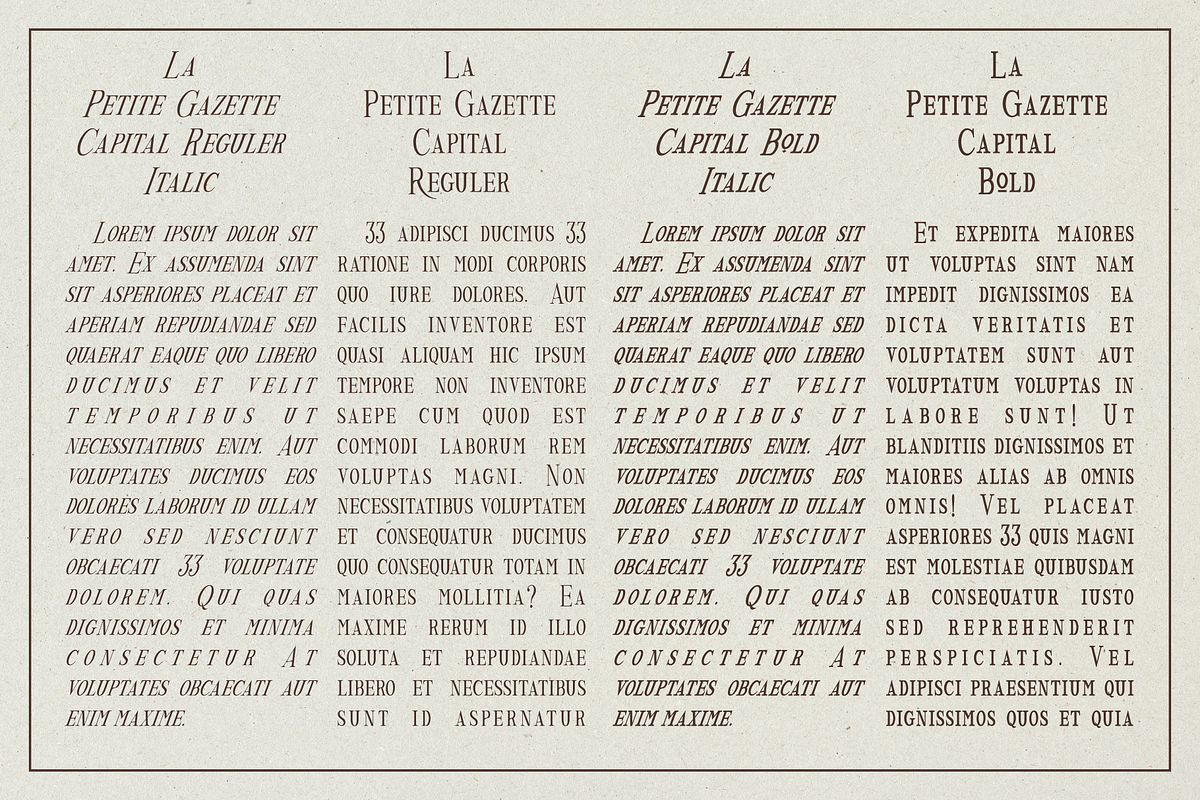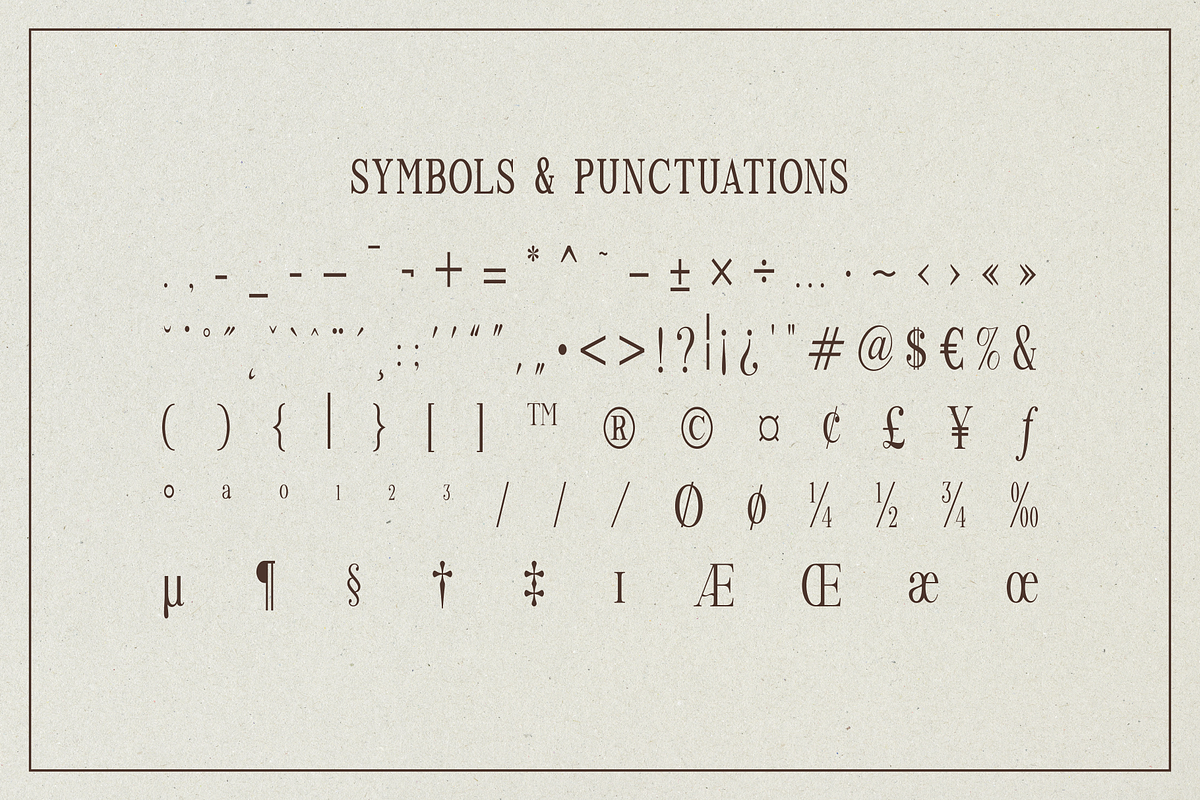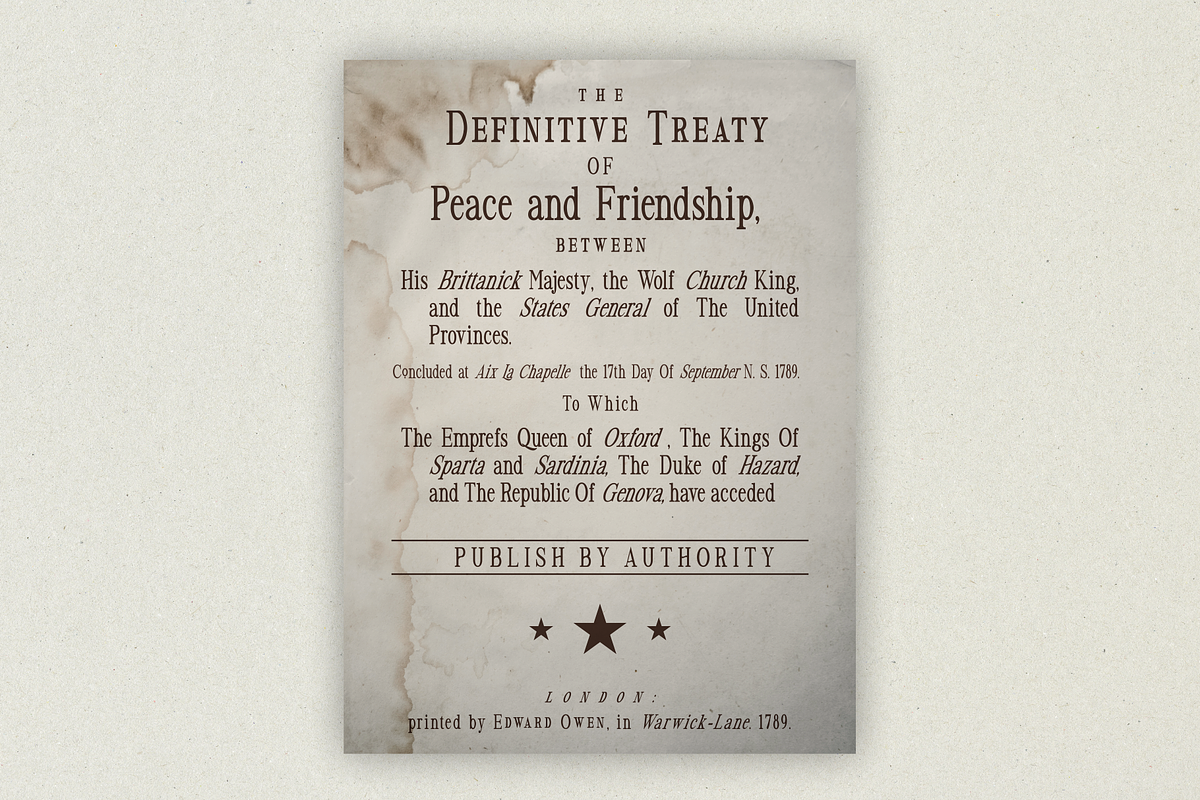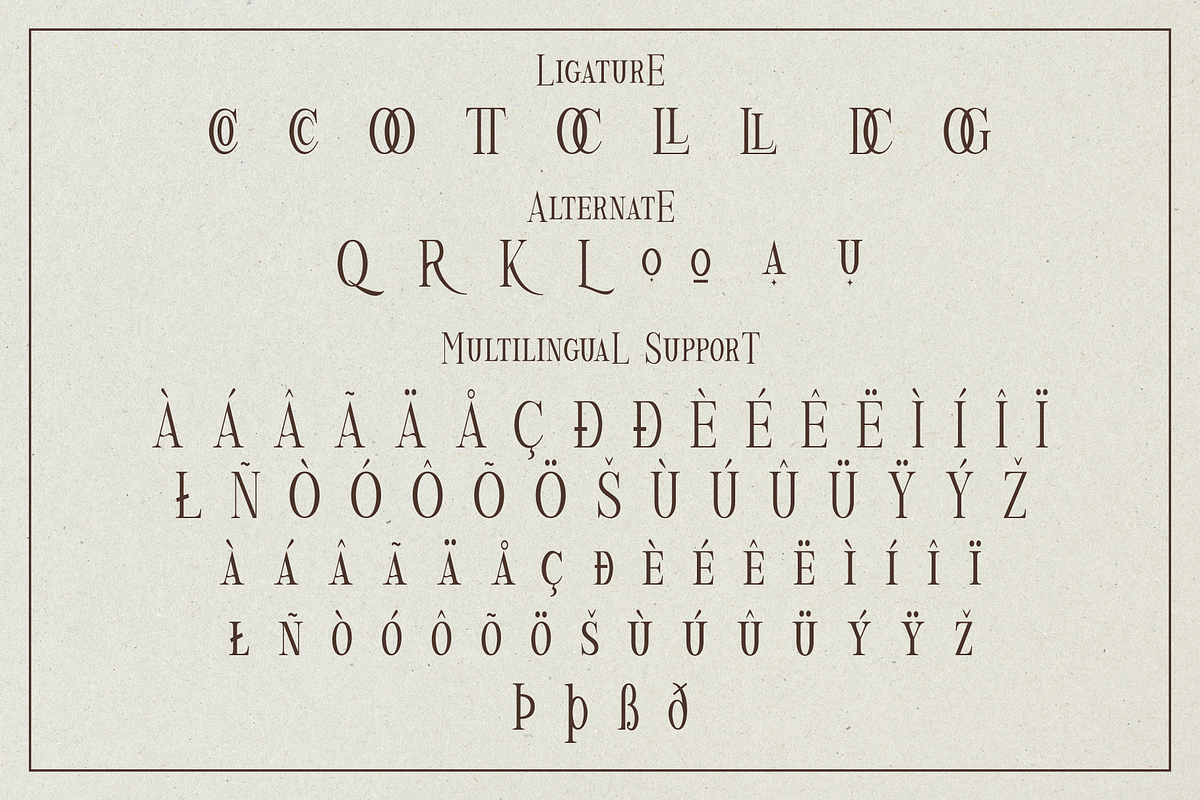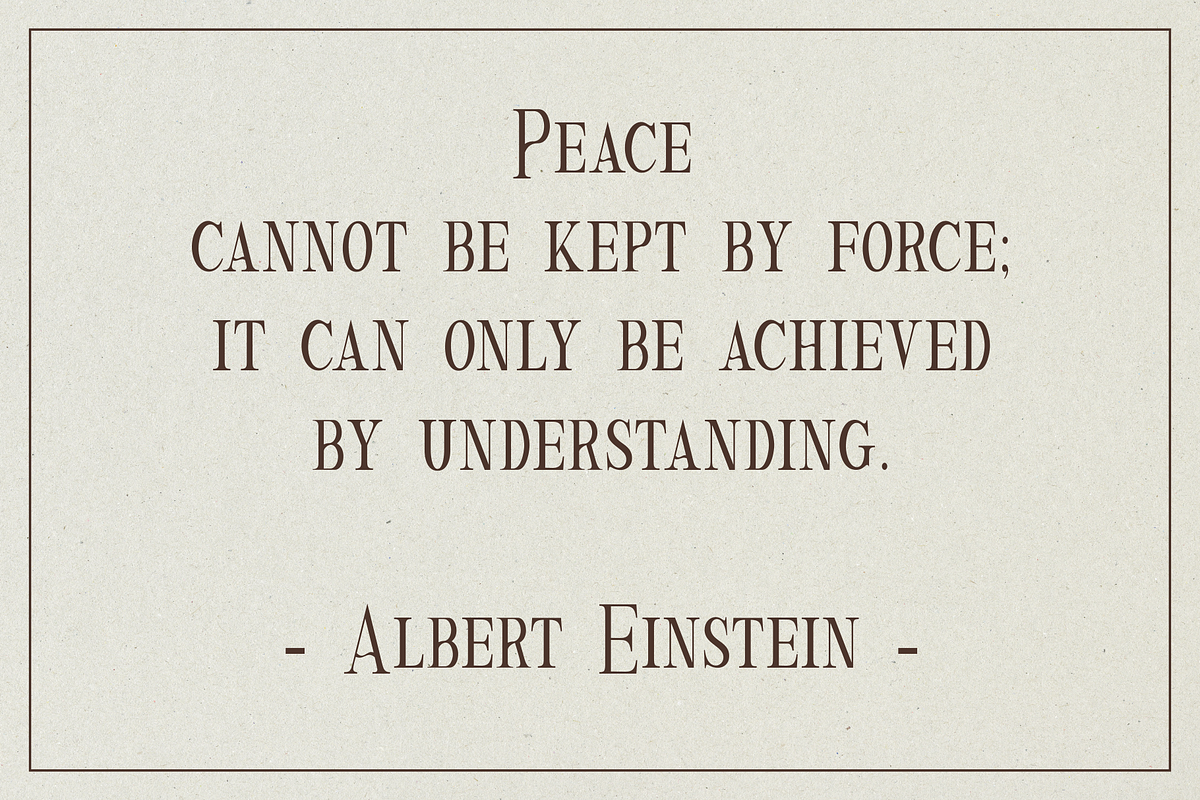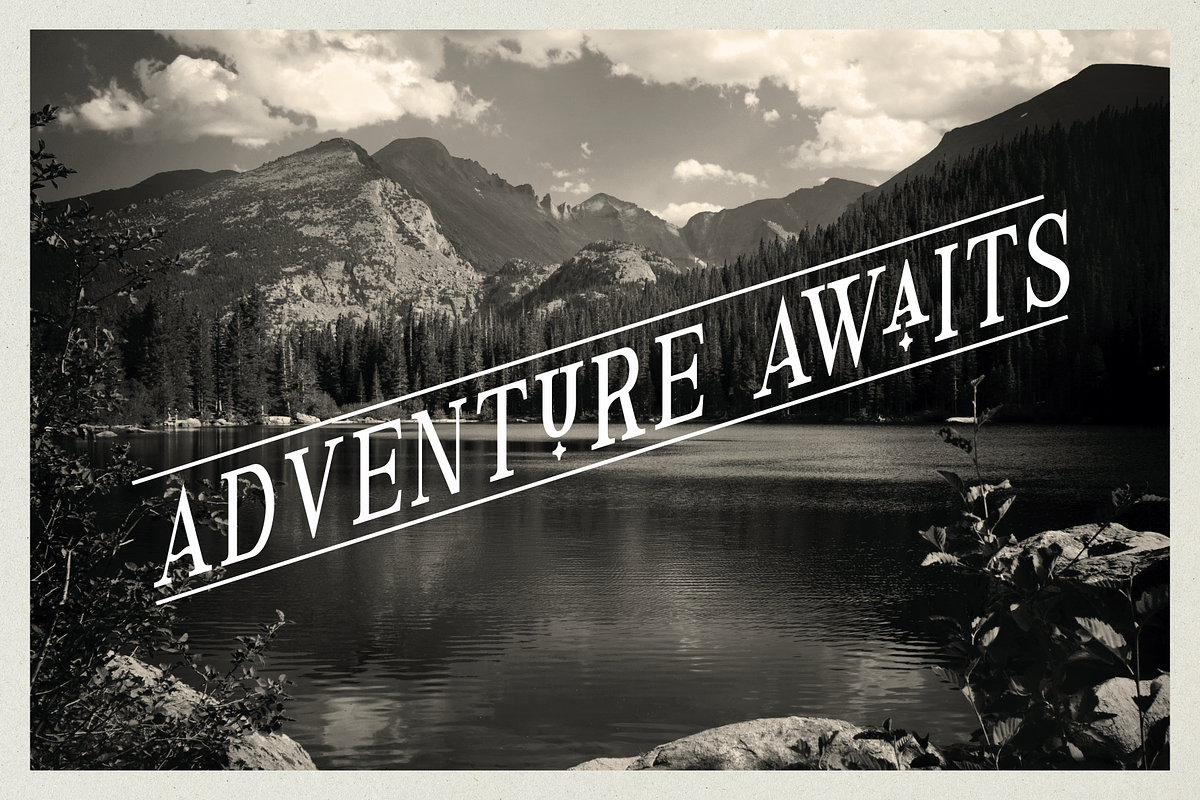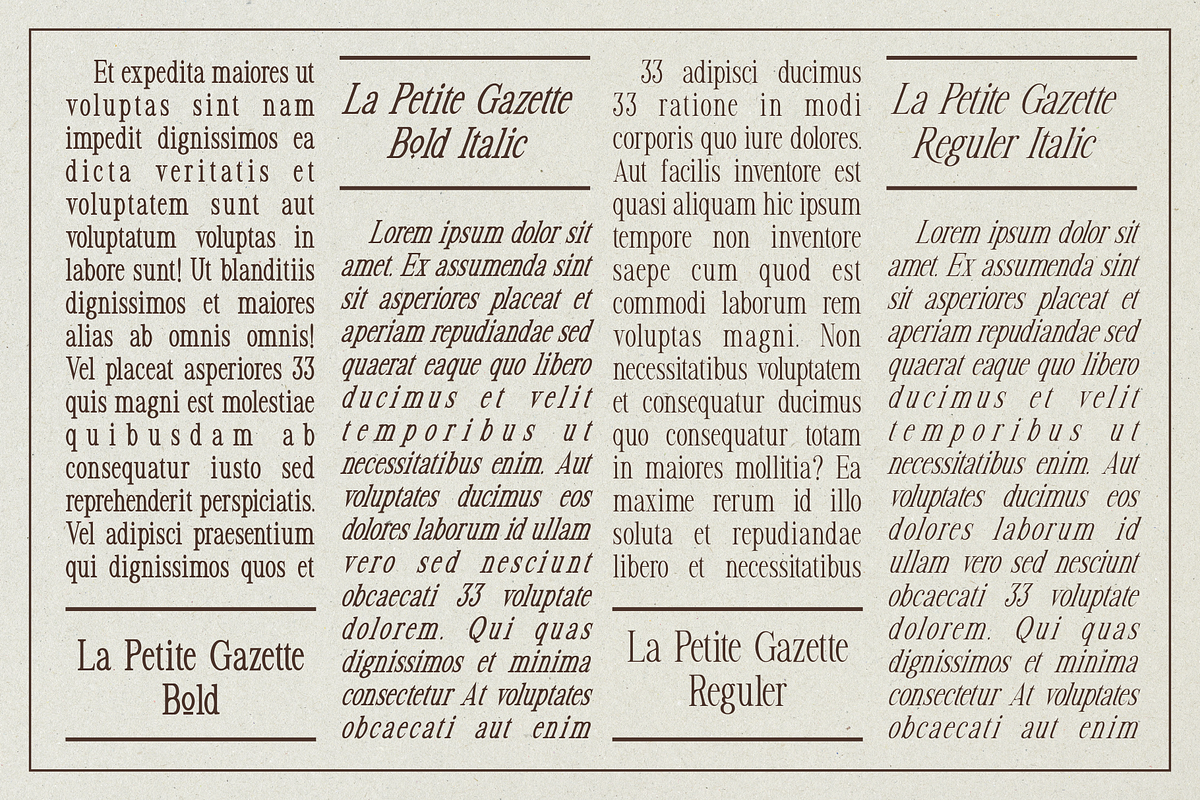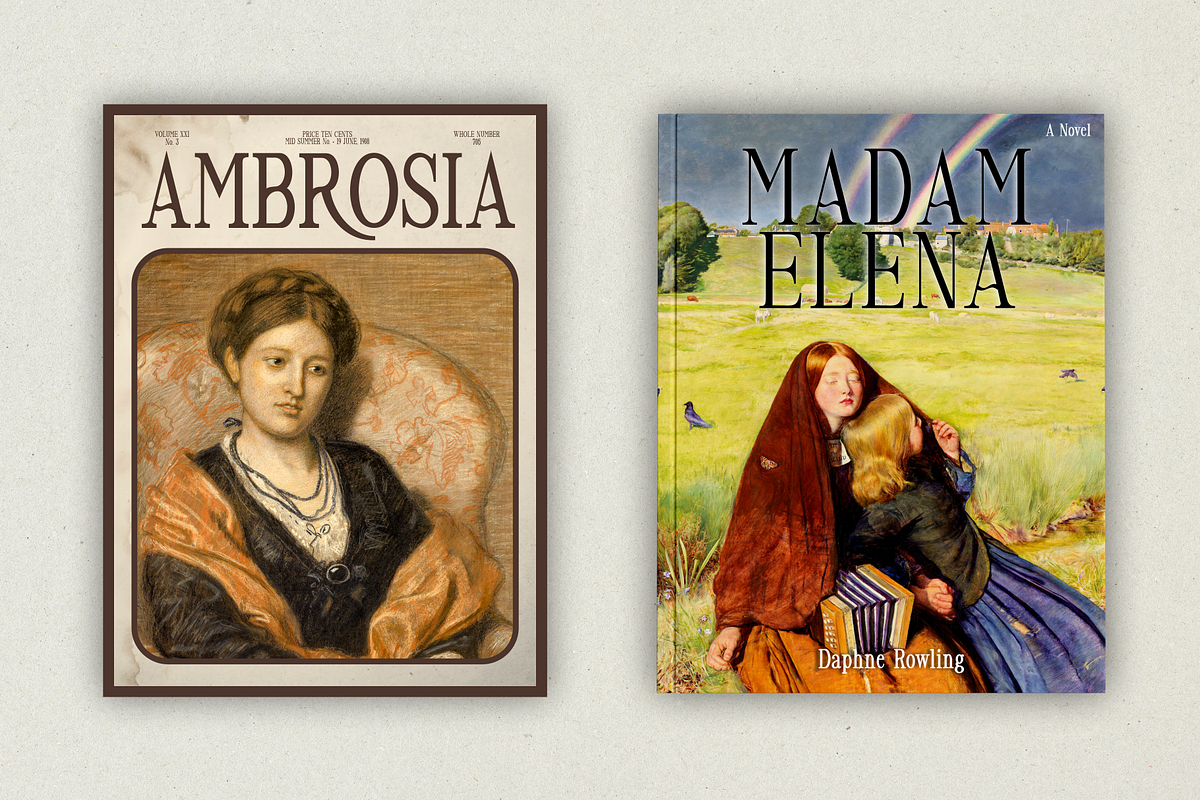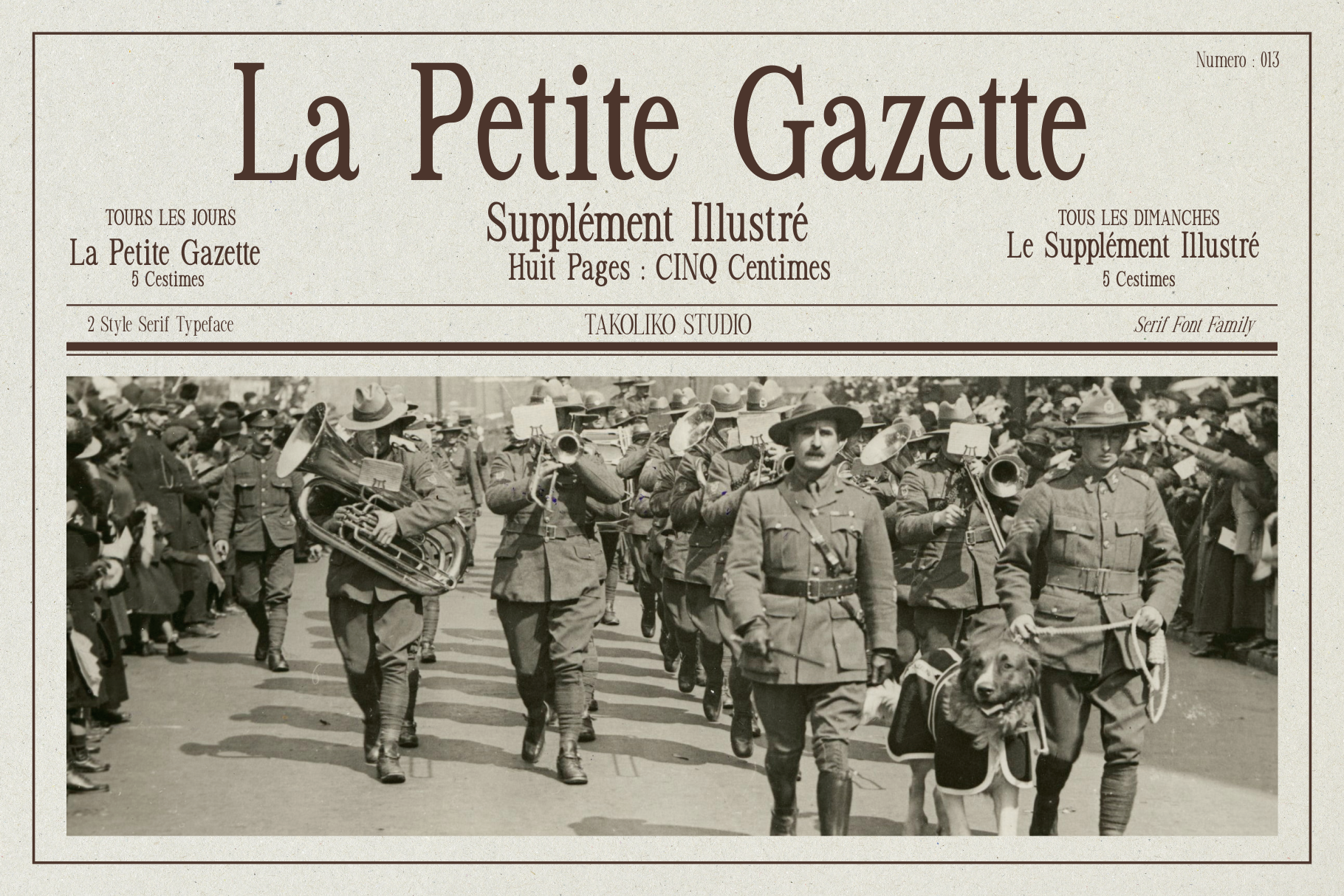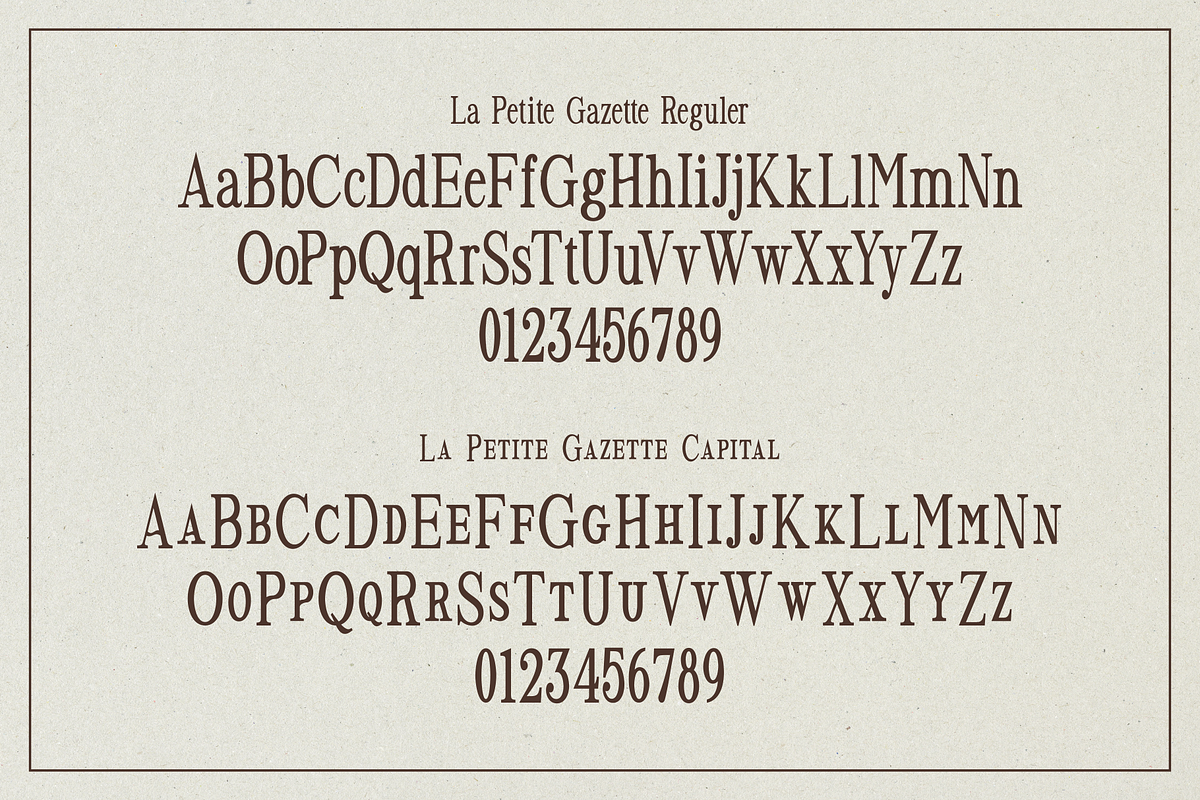
La Petite Gazette - Serif Typeface
Introducing our serif typeface "La Petite Gazette "
La Petite Gazette is elegant and formal serif font. it has a vintage, classy, and elegant atmosphere. La Petite Gazette came with small caps, 2 weight, Reguler and Bold, 2 Slant fonts. It has a alternates, ligature and support multilingual language. It can easily be matched to an incredibly large set of projects, and good for communicating your brands.